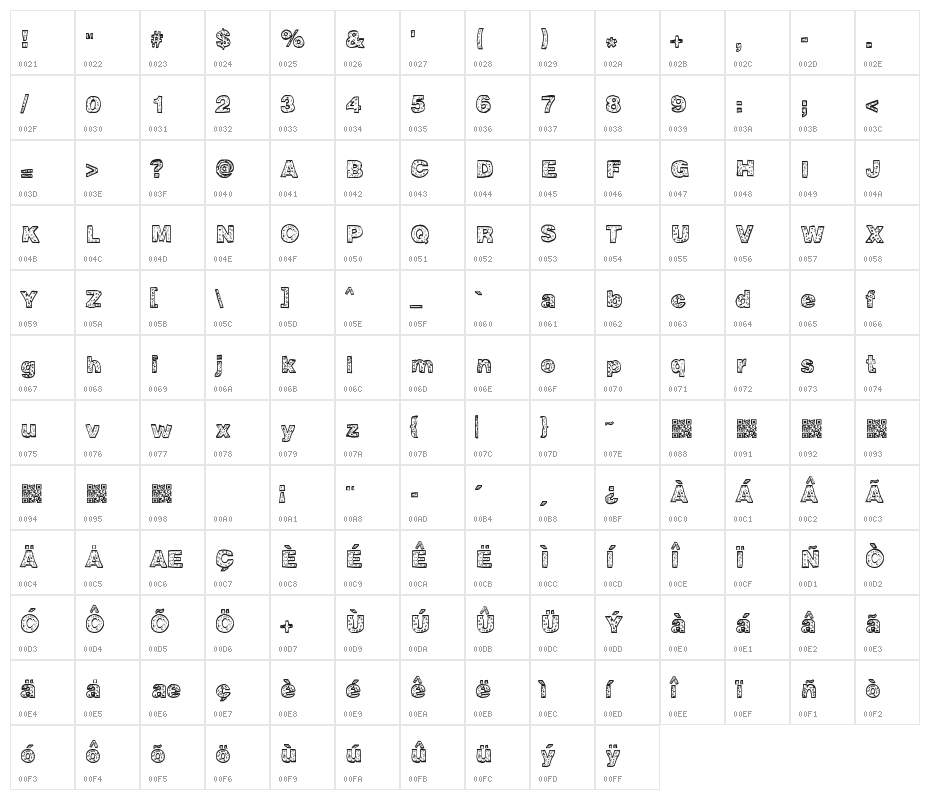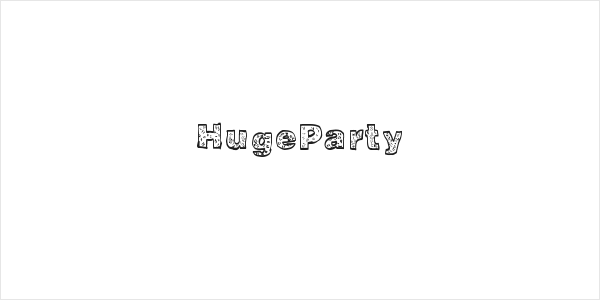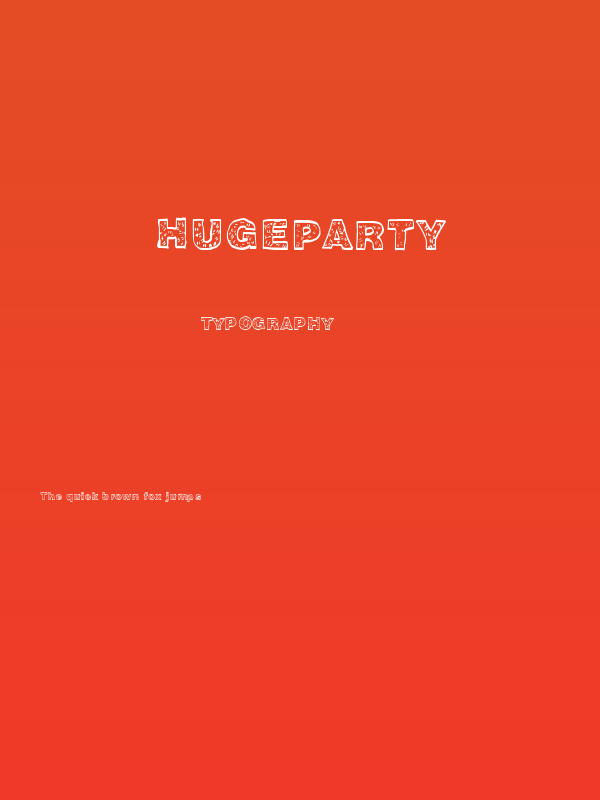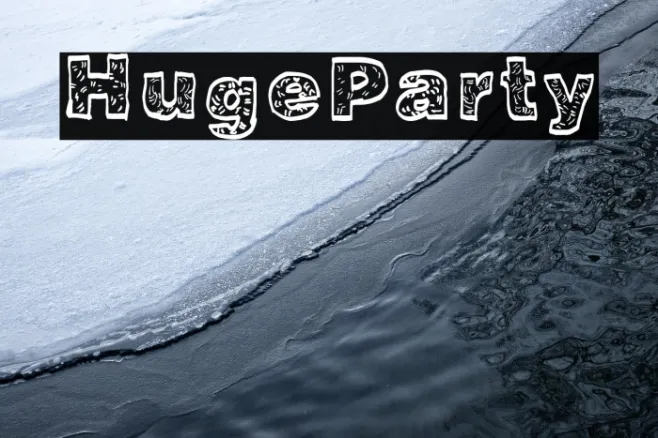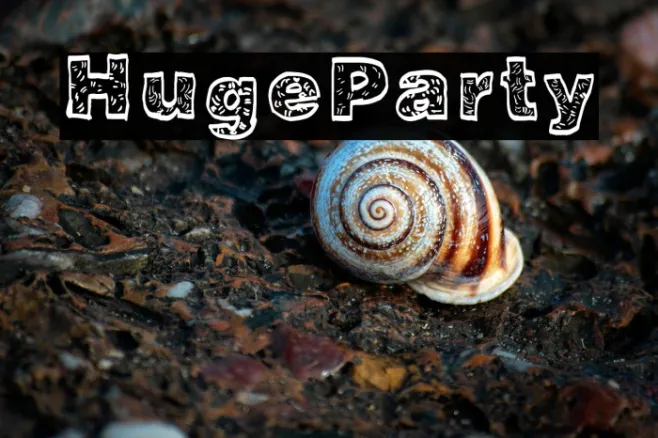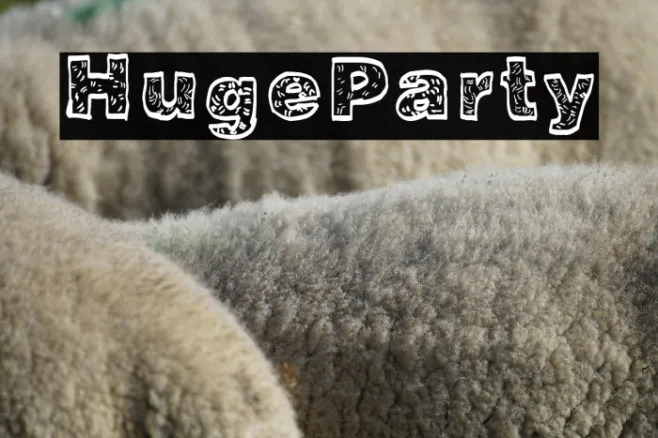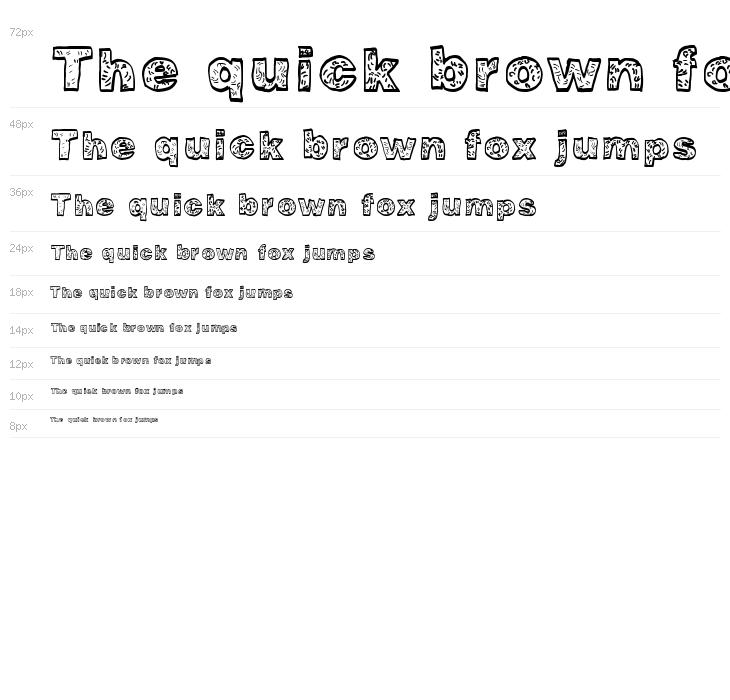
HugeParty Font
HugeParty Description
This playful and energetic font features a bold, hand-drawn style with a textured, doodle-like pattern inside each character. The uppercase and lowercase letters maintain a consistent, chunky appearance, while the numbers and special characters follow the same whimsical design. The font's unique, artistic flair makes it stand out, perfect for projects that require a fun and informal touch. Its decorative nature is emphasized by the irregular, sketch-like lines that give it a lively and dynamic feel.
| Overall Style | Playful, Artistic |
| Proposed Projects | Ideal for children's books, party invitations, posters, and playful branding. |